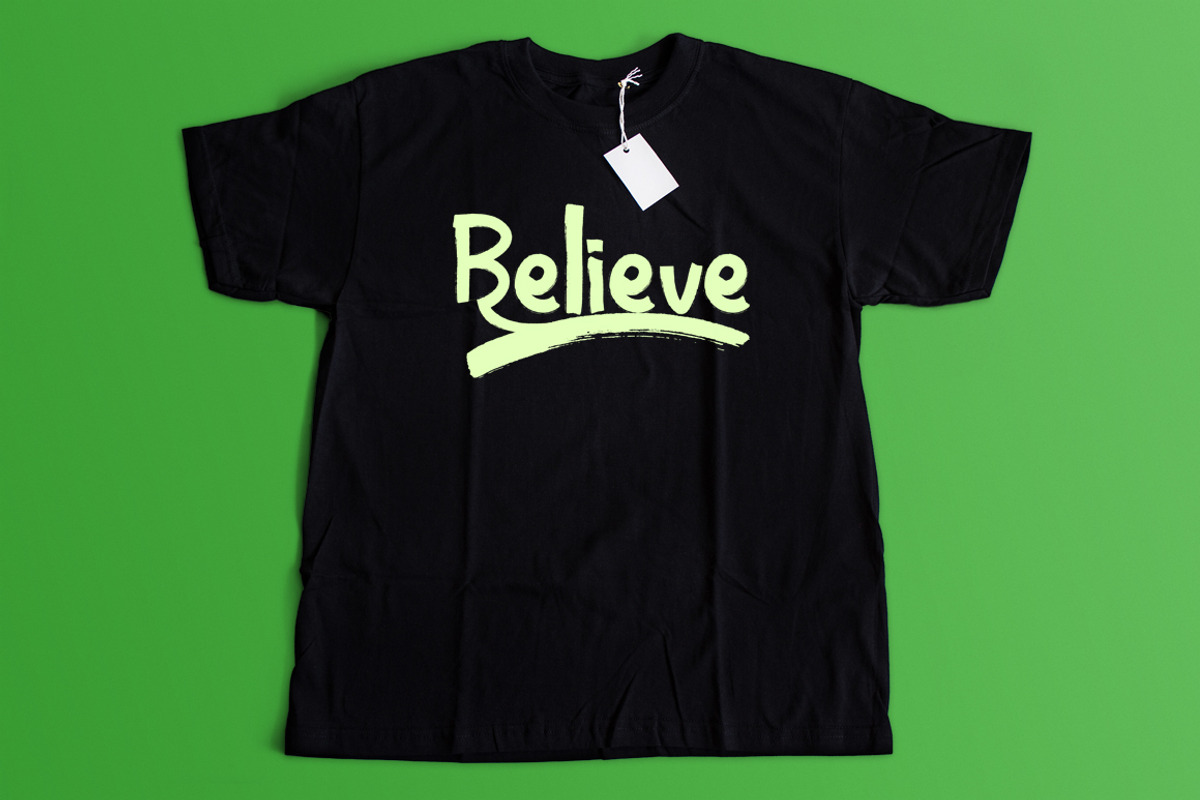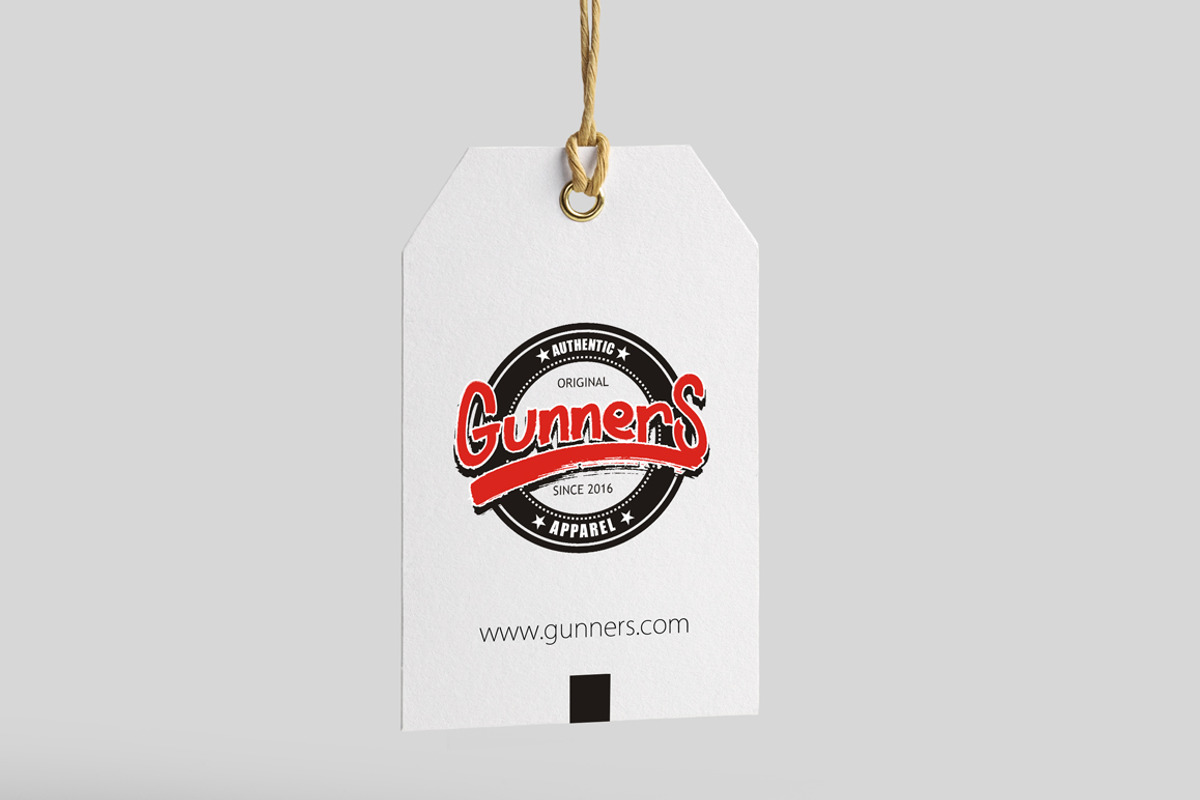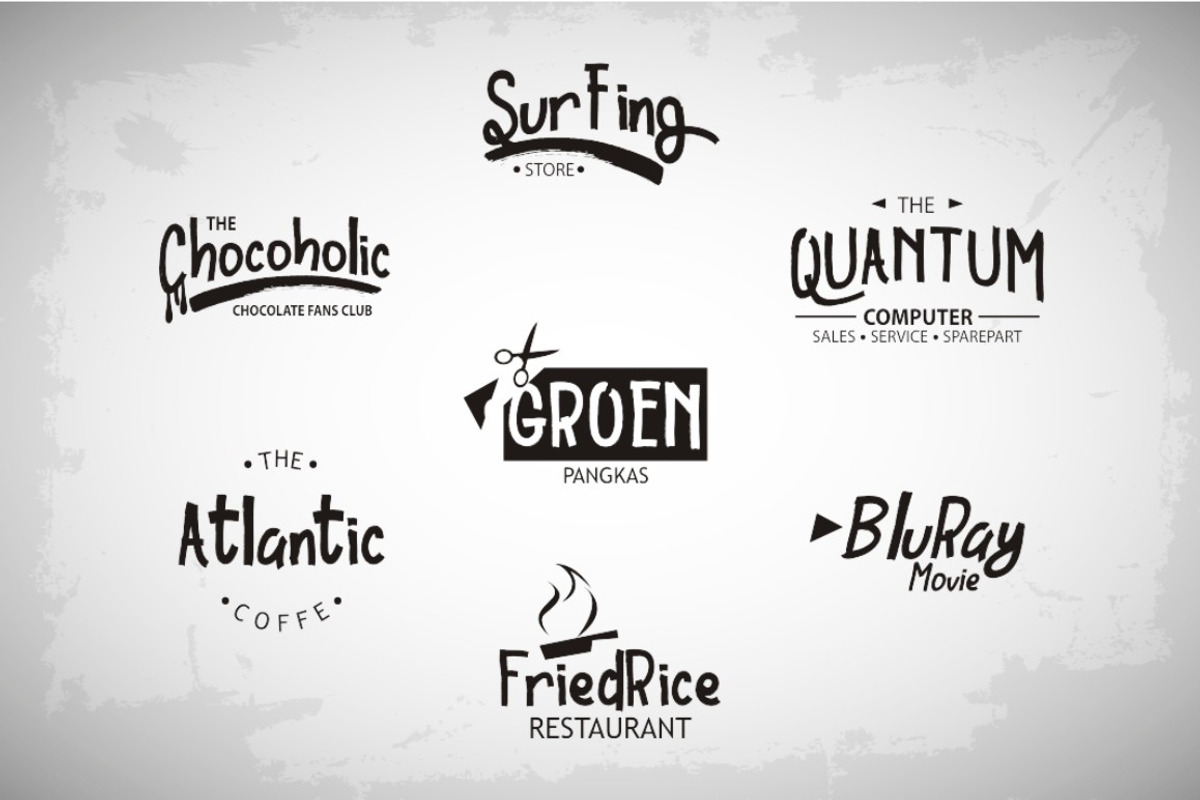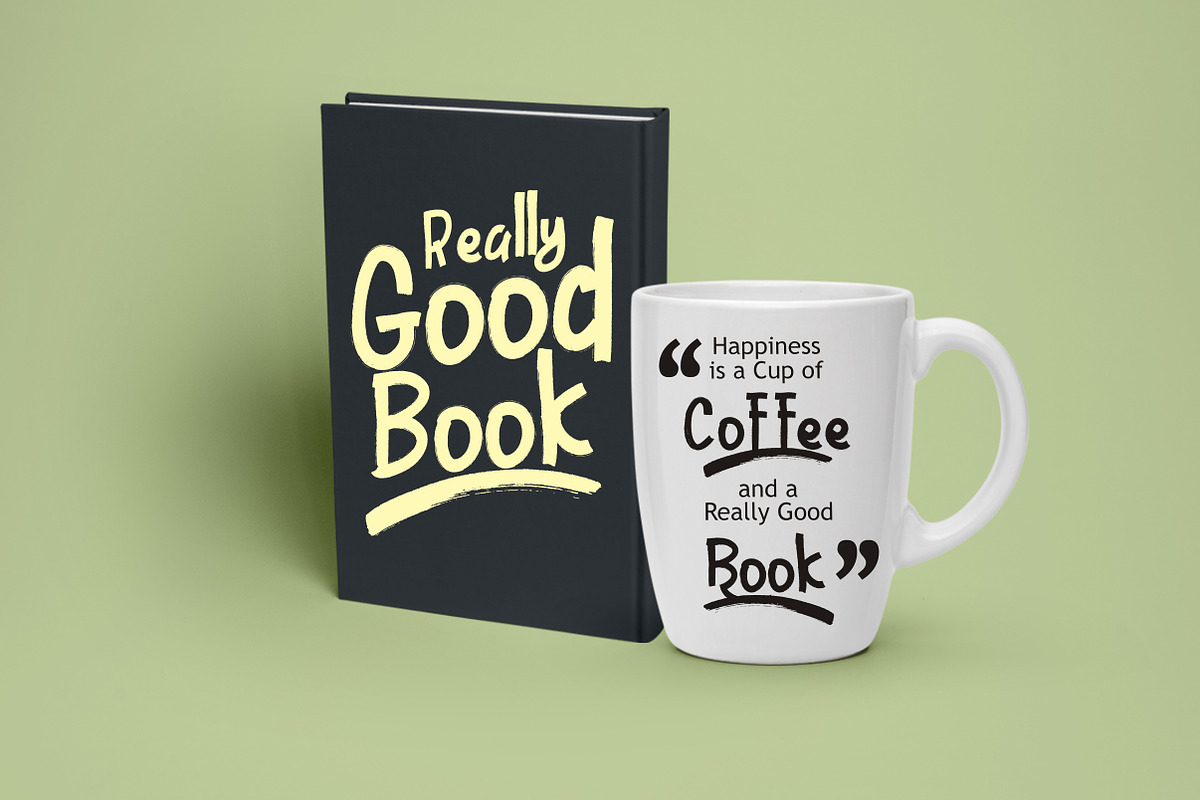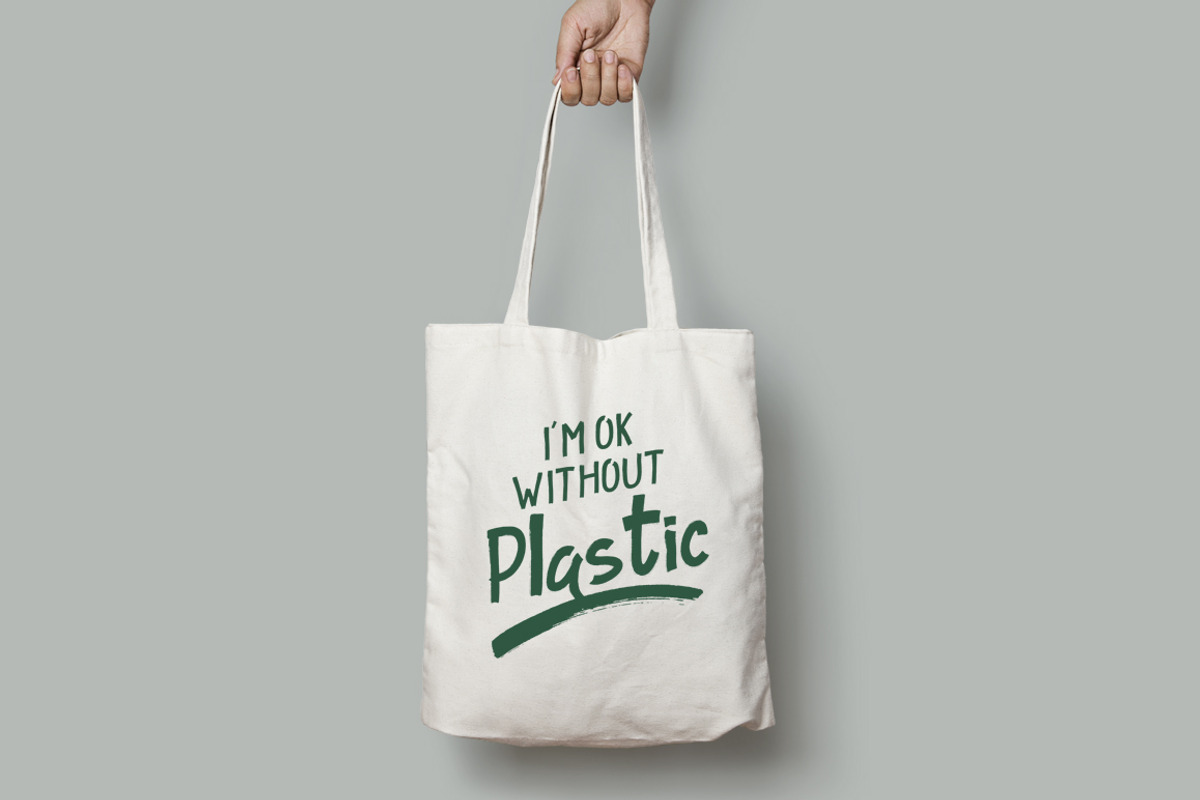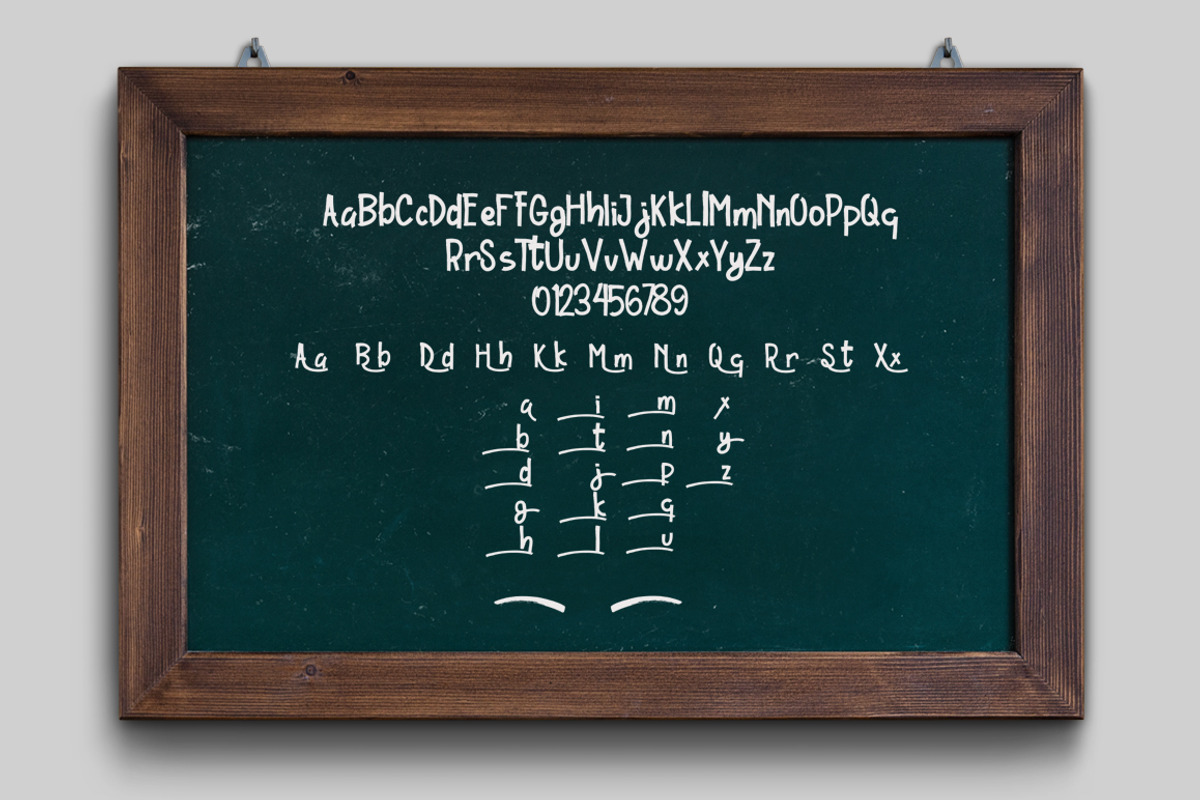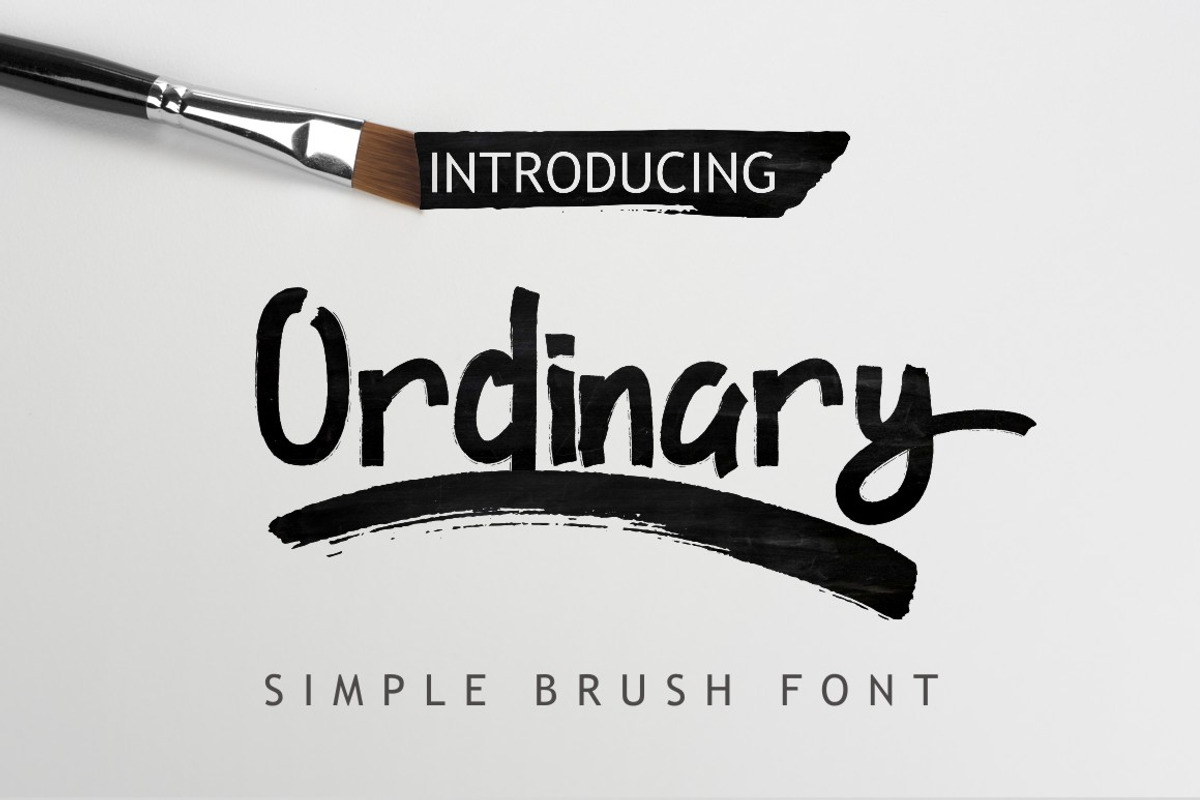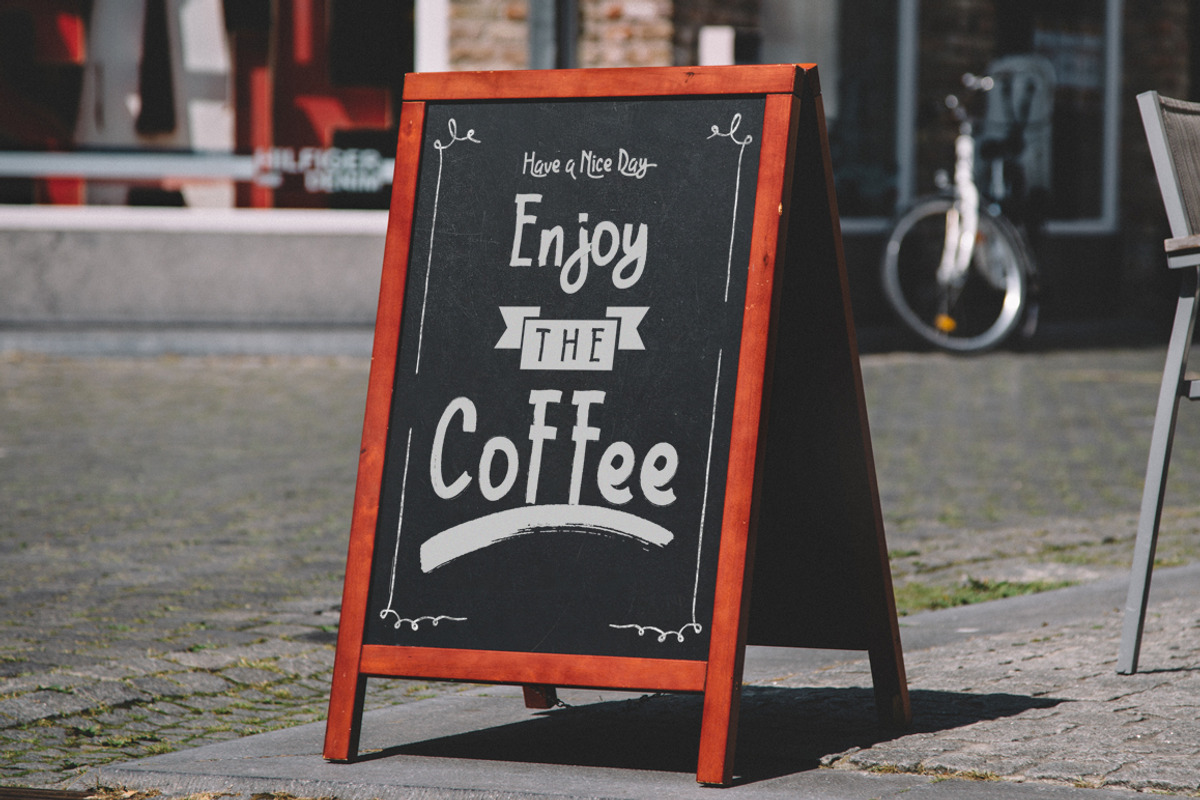
Ordinary Brush Font
Ordinary Brush Font by Debut Studio is a font selected for branding, posters, packaging, typography.
Why Ordinary Brush Font is worth a look
Ordinary Brush Font by Debut Studio fits naturally into Branding, posters, packaging, typography.